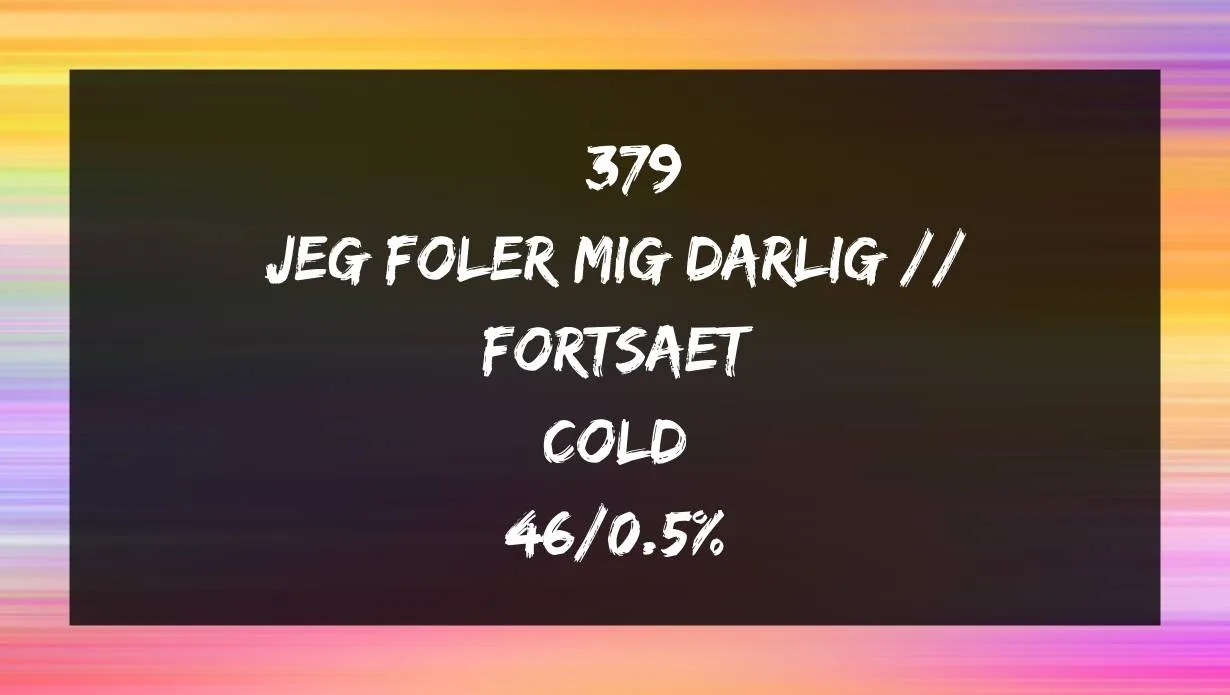
Edo Sz Font is a sans serif typeface created by Edo Smolik in 2006. The name “Edo Sz” is a play on the word “Sz” which means “size” in Hungarian. This font was designed to be used for headlines and display purposes. It is available in two weights, light and bold.
This font has a unique look that sets it apart from other fonts. This Font was created to be used for headlines and display purposes. It is available in two weights, light and bold. You can also pair it with verb font.